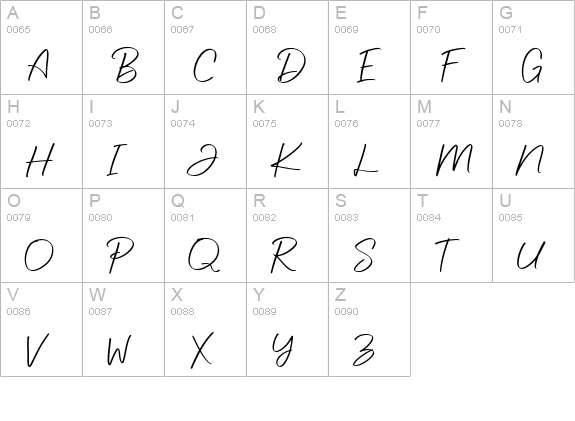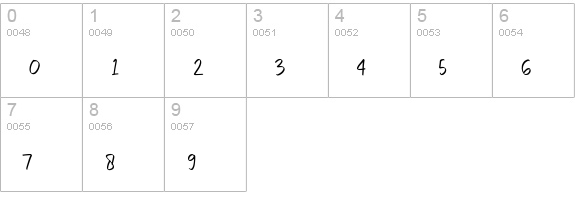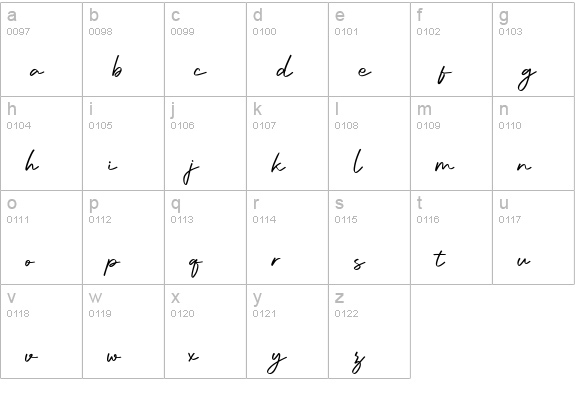
Bedger Font Details
Bedger is a demo font in the Script > Calligraphy category, designed by craftsupplyco. It has been downloaded 42 times and is available for Windows, Mac and Linux.
Introducing Bedger font, a modern and stylish typeface that exudes elegance and sophistication. With its sleek lines and unique curves, Bedger font is perfect for adding a touch of class to any design project. Whether you're creating a logo, branding materials, or a website, Bedger font will make your text stand out and leave a lasting impression.